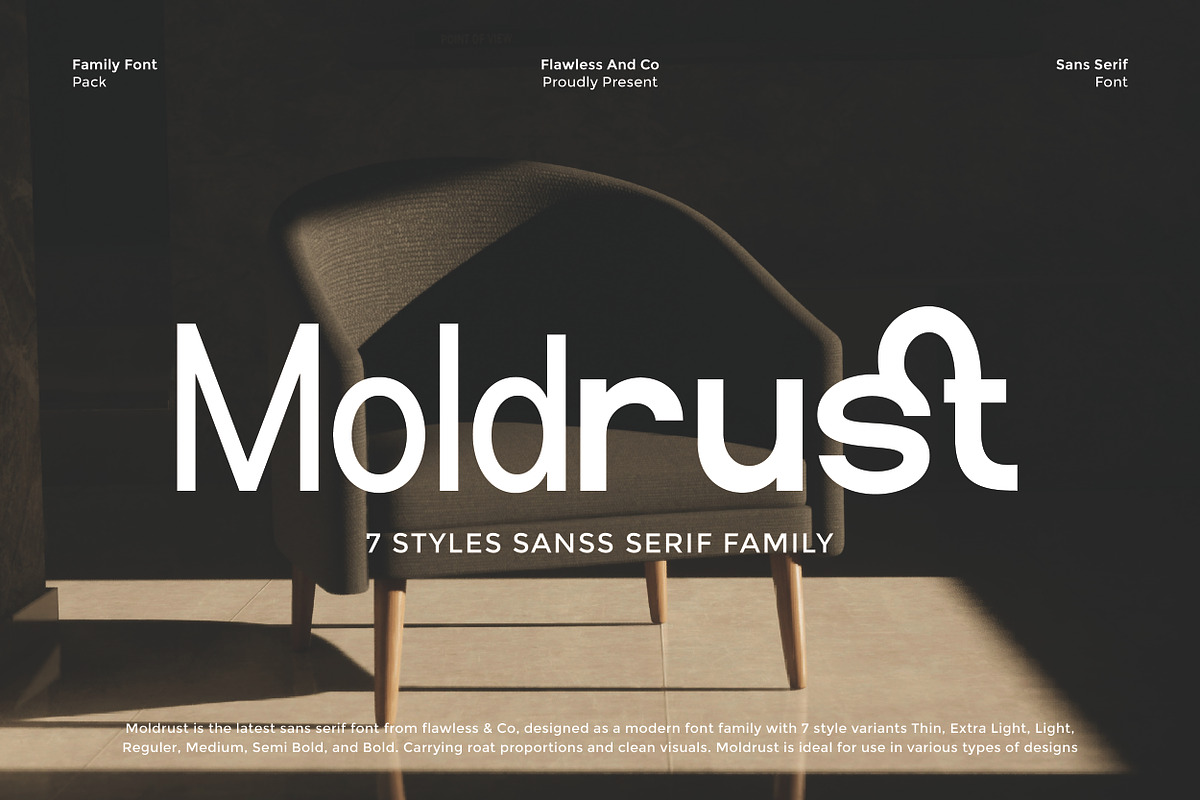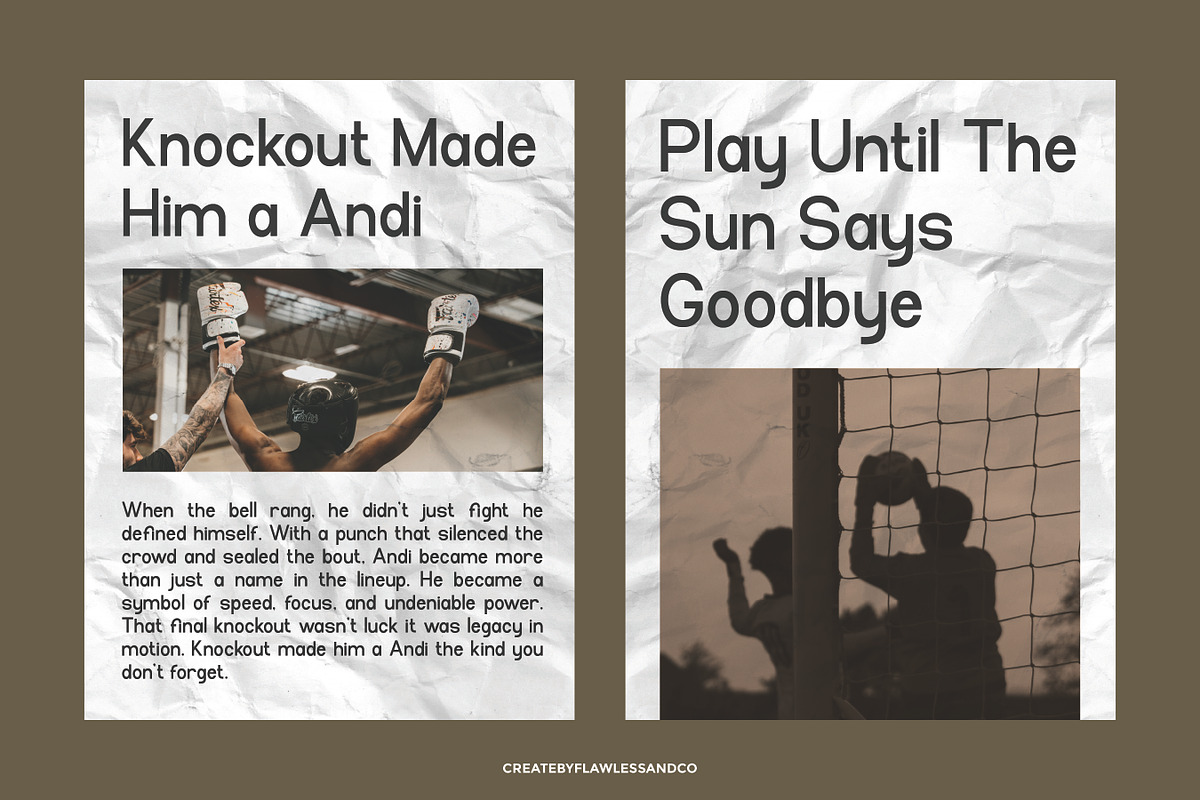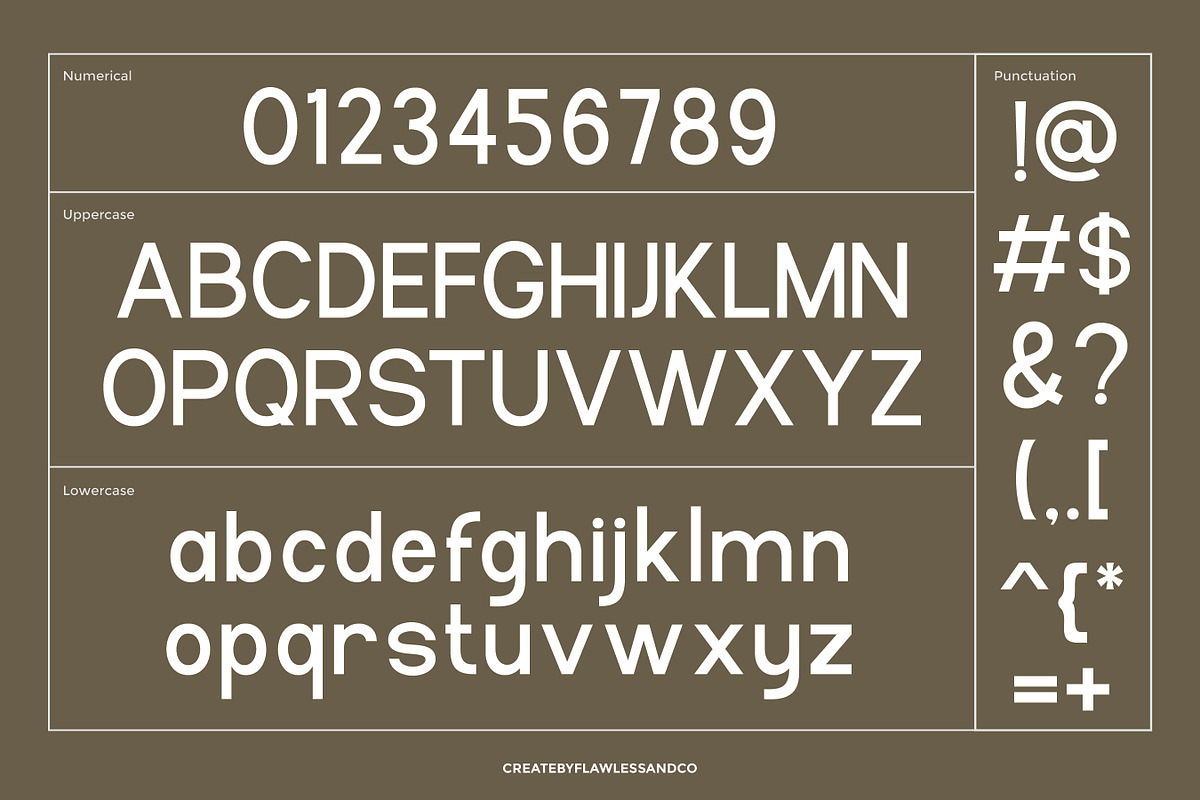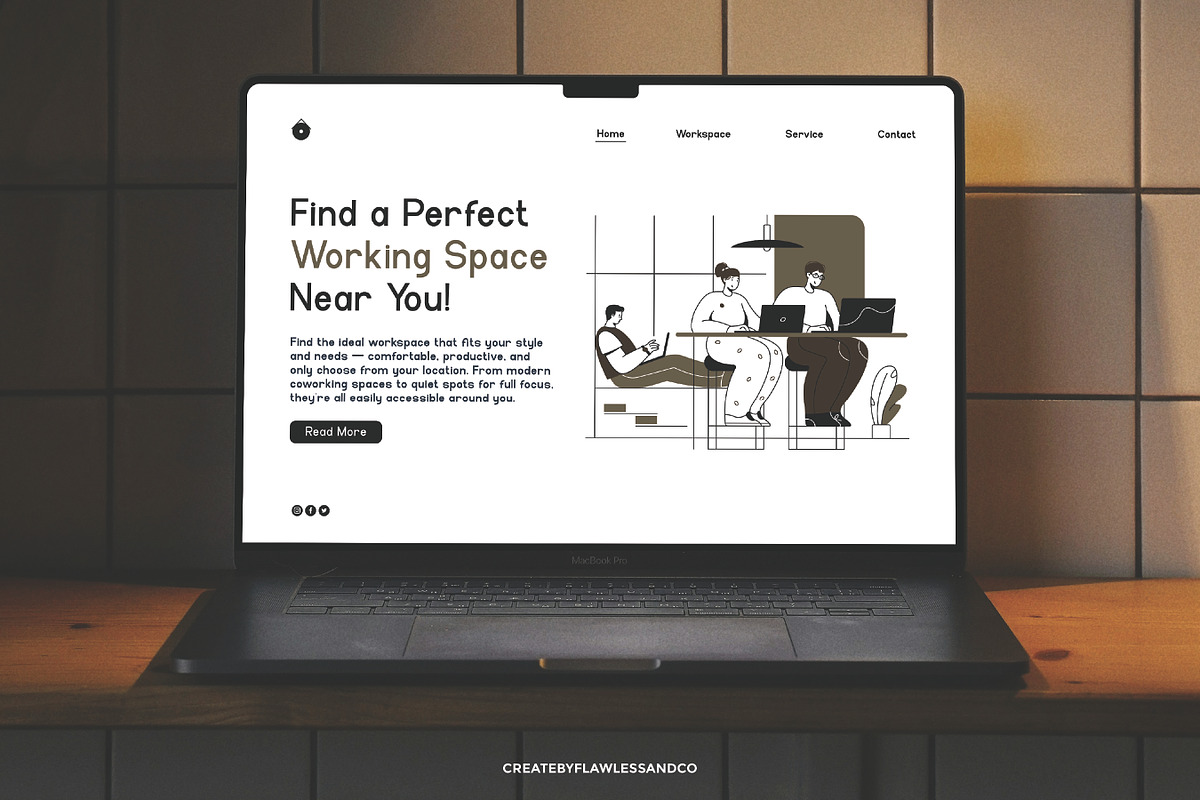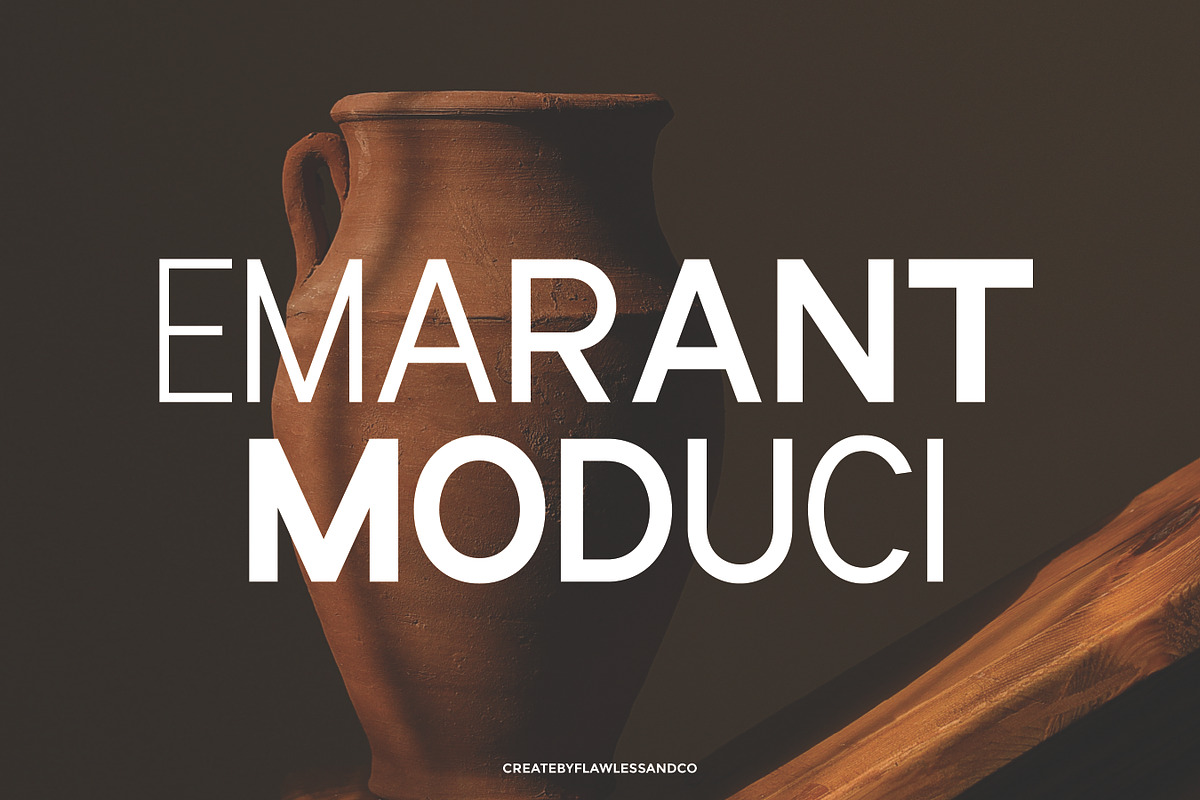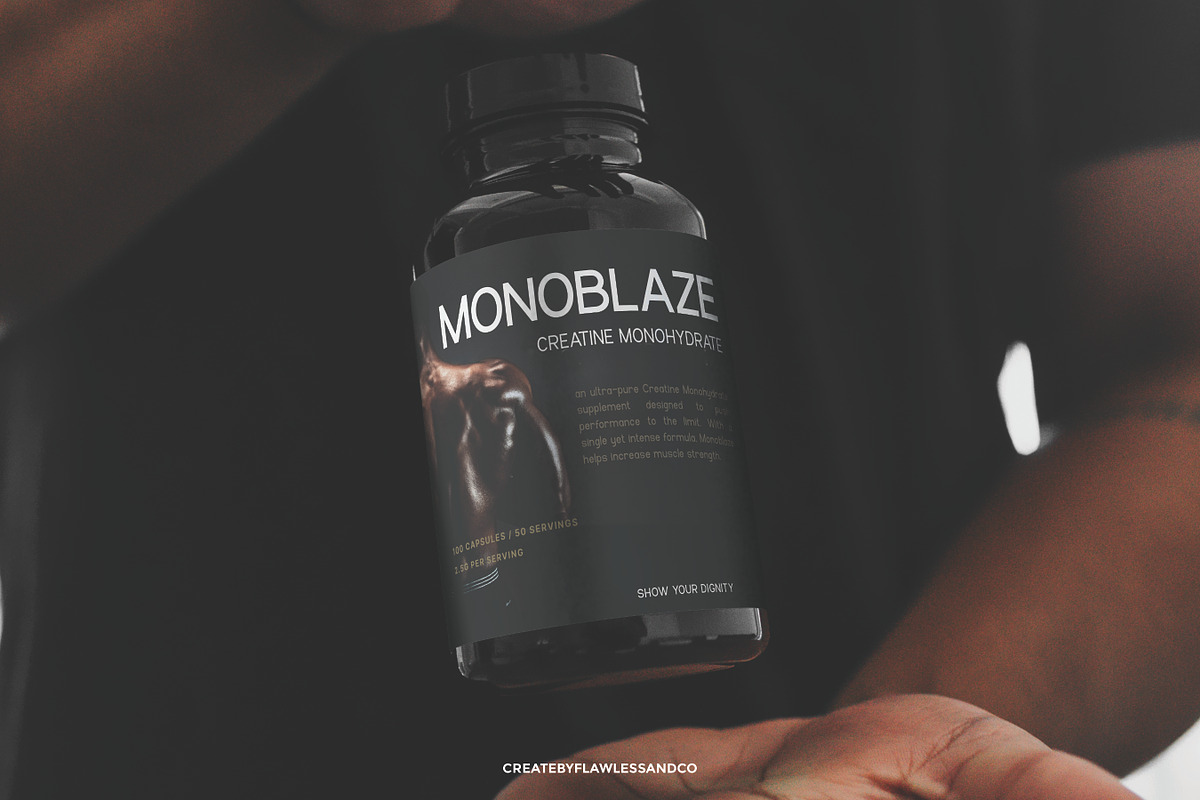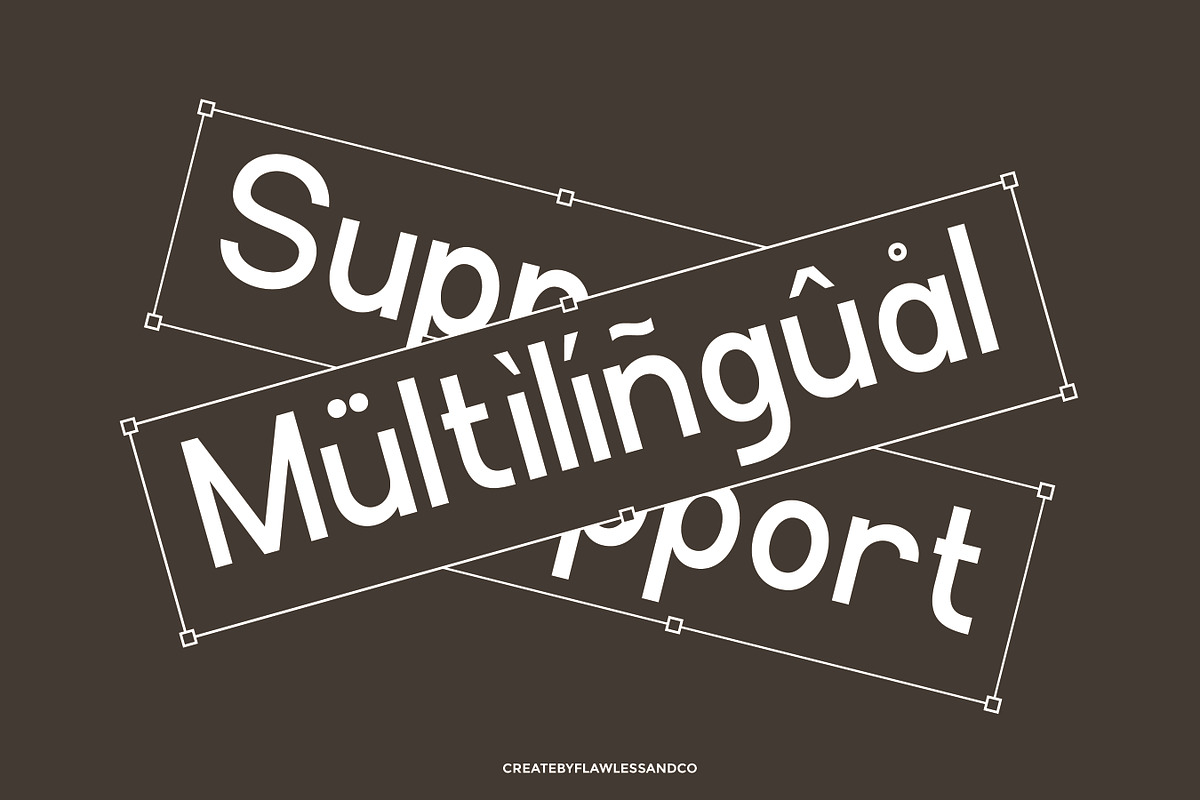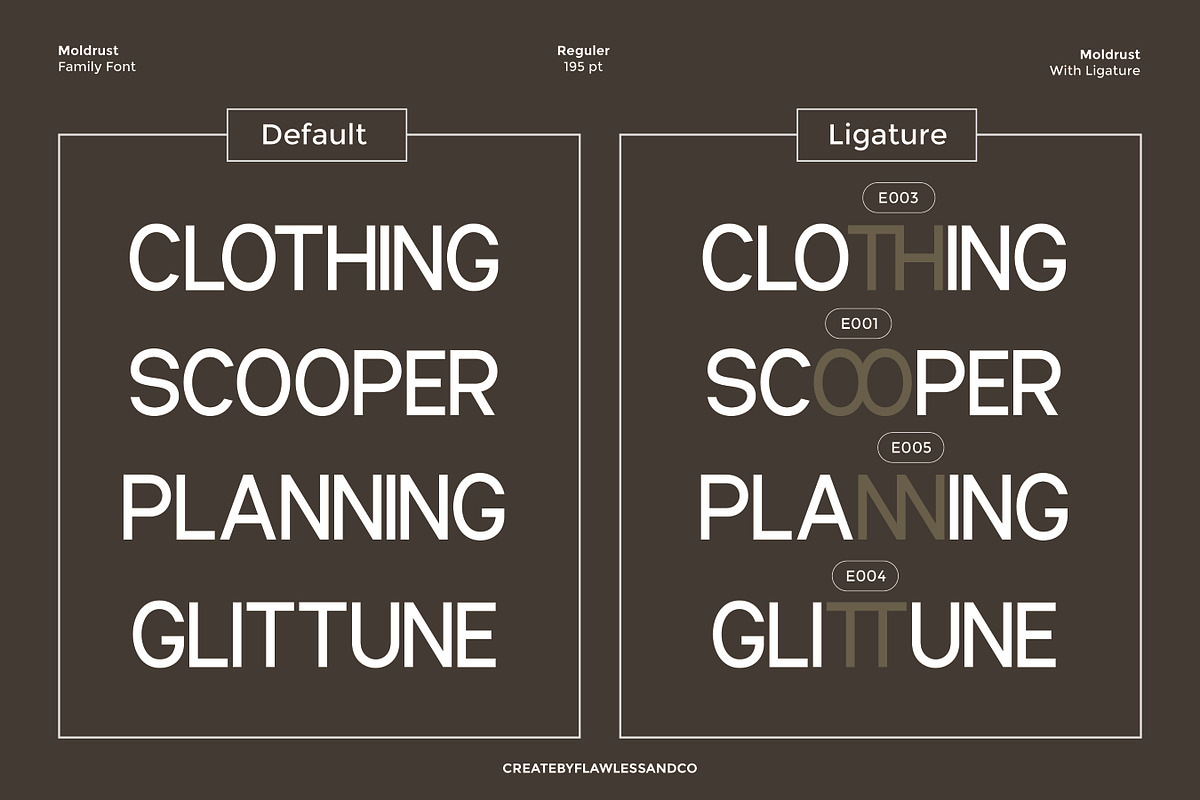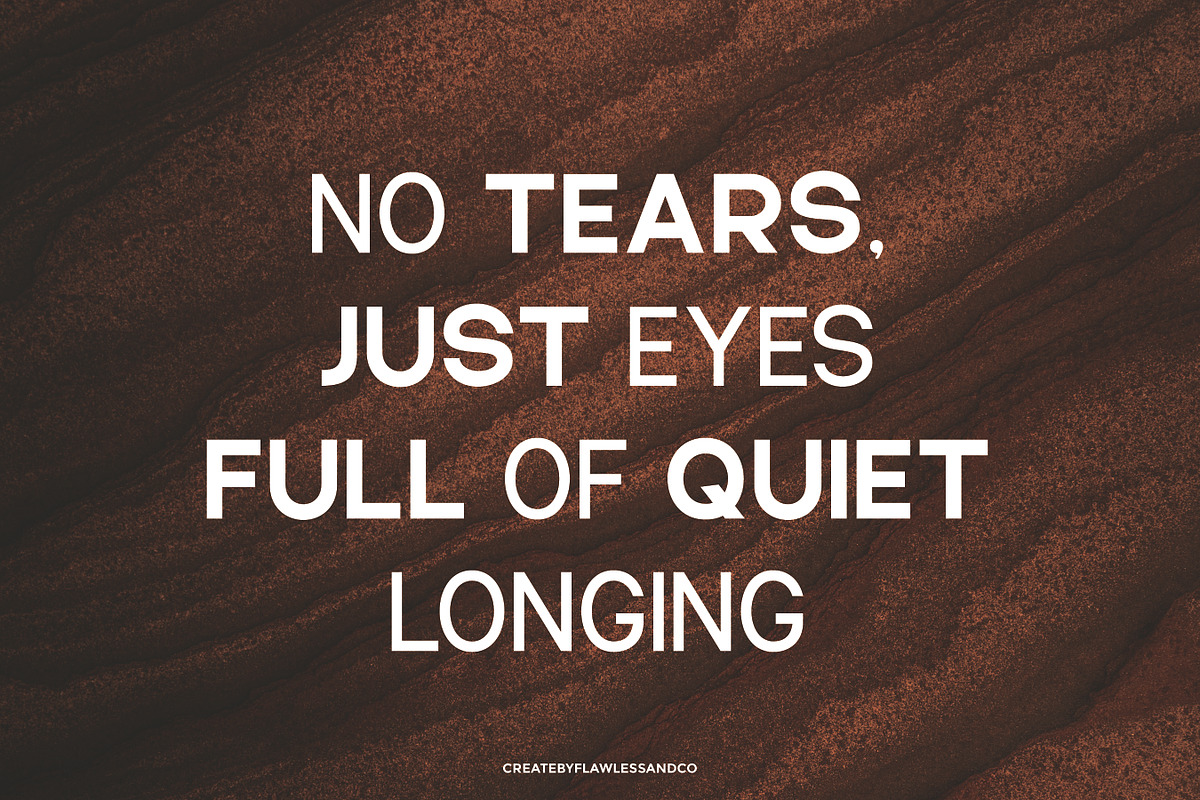
Moldrust - Family Sans Serif Font
Moldrust - Sans Serif Family Font
Moldrust is a modern sans serif font family with 7 style variants: Thin, Extra Light, Light, Regular, Medium, Semi Bold, and Bold. Carrying clean visuals and well-balanced proportions, Moldrust offers clarity and versatility across a wide range of design needs — from editorial and branding to packaging and digital applications. With its minimalist construction and elegant geometry, Moldrust is perfect for projects that demand both functionality and contemporary aesthetics.
Who Should Use Moldrust?
Moldrust is made for creatives, designers, and brands seeking a clean, modern, and highly versatile font family.
This font is perfect for:
- Branding studios crafting professional and timeless visual identities
- Editorial designers working on magazines, articles, and long-form layouts
- UI/UX designers building sleek, legible digital interfaces
- Product packaging and label creators who need clarity and impact
- Minimalist lifestyle and fashion brands wanting elegant simplicity
- Businesses needing corporate materials with a refined, modern edge
Whether you're designing for print or digital, Moldrust brings structure, clarity, and sophistication to any project.
A Must-Have Font for Brand and Logo Creators
Moldrust is an essential tool for designers who value clarity, structure, and style. Its clean sans serif forms make it a perfect fit for bold branding, modern logos, and professional identity systems. Whether you're building a fresh brand or refining an established one, Moldrust ensures your typography speaks with confidence.
Why Choose Moldrust for Brand and Logo Projects?
Moldrust brings together clean geometry, modern aesthetics, and versatile weight options—making it the perfect choice for building standout brands and logos. Its sharp legibility and structured elegance allow you to create visual identities that are both timeless and distinctive. From tech startups to lifestyle brands, Moldrust delivers clarity and professionalism across every touchpoint.
Suitable For:
- Brand identity and bold logo design
- Editorial layouts and modern magazine headlines
- Corporate presentations and business materials
- Website headers and clean UI/UX design
- Product packaging and minimalist labels
- Stationery, portfolios, and lookbooks
- Social media graphics with a sharp, contemporary feel